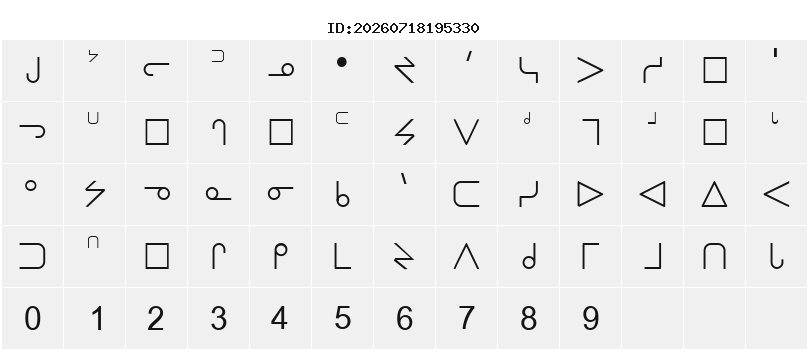
Cree Preview
• Font Name: Cree
• Full Font Name: CreeNormal
About Cree.ttf
Cree.ttf is a modern, elegant sans-serif font designed for ultimate readability and visual harmony. Perfect for branding, headlines, web design, and print materials.